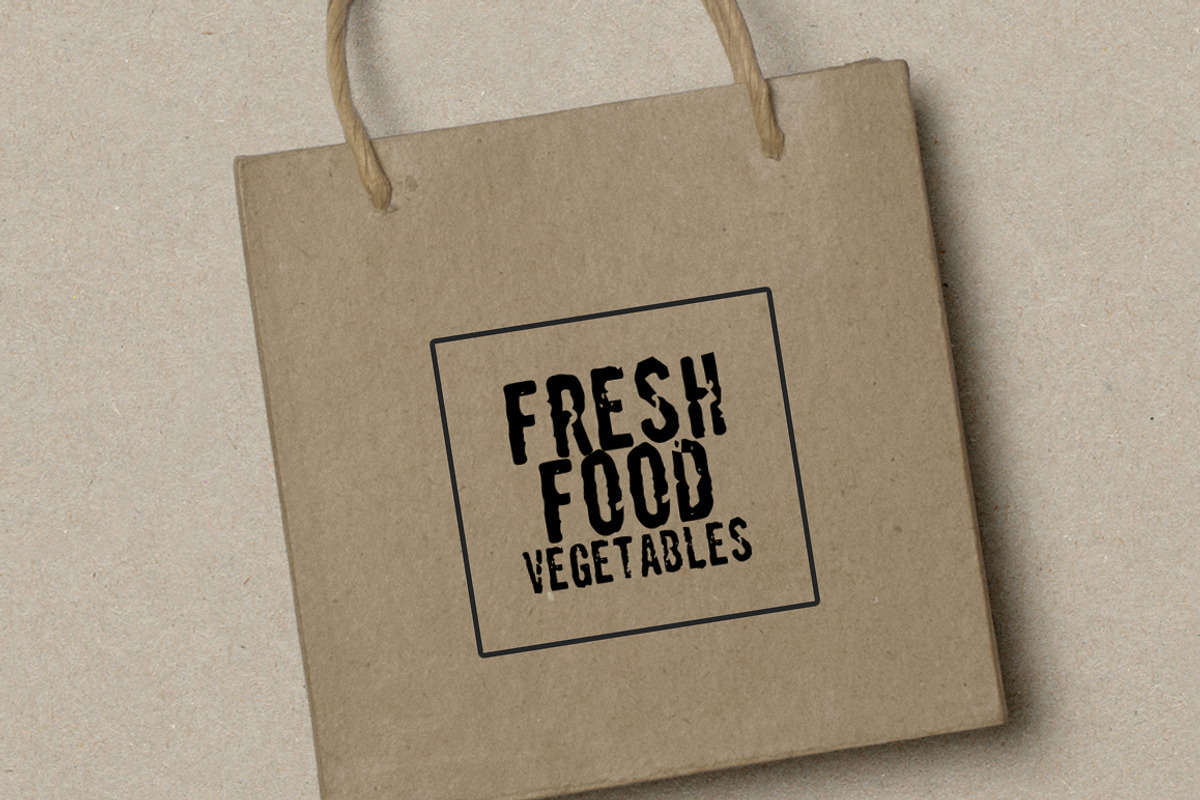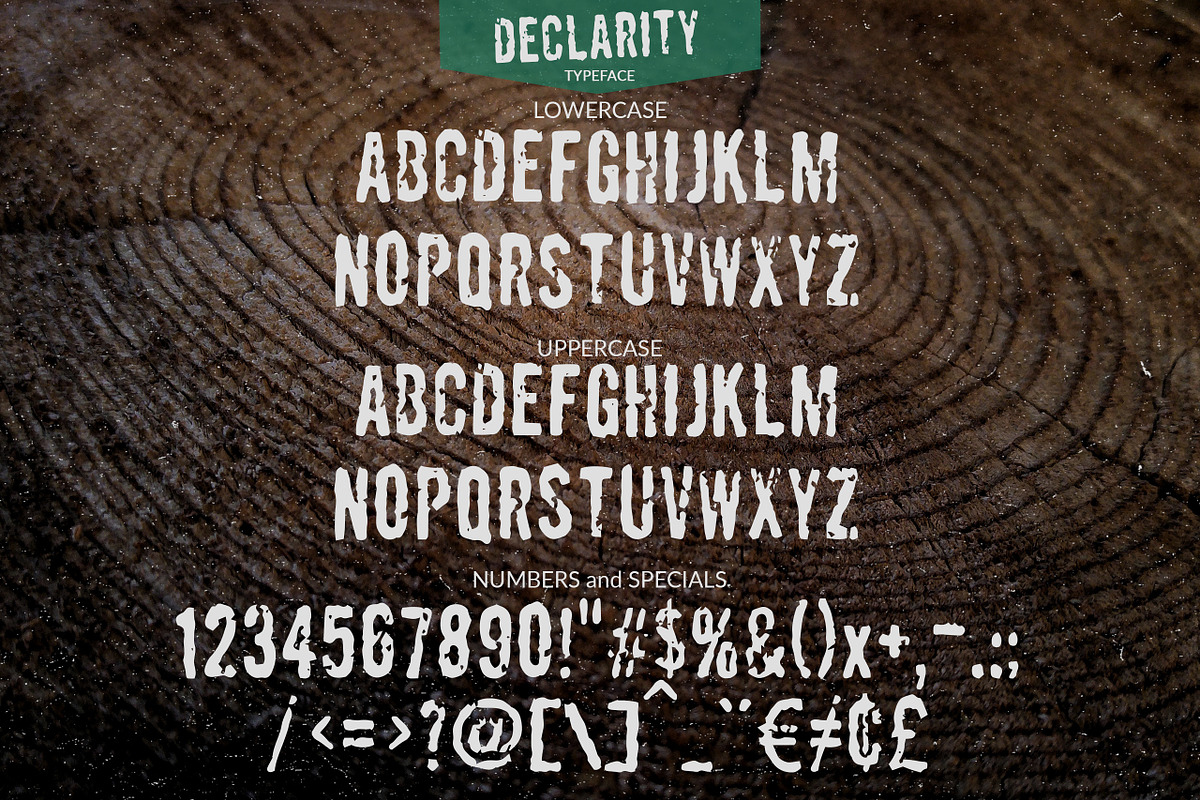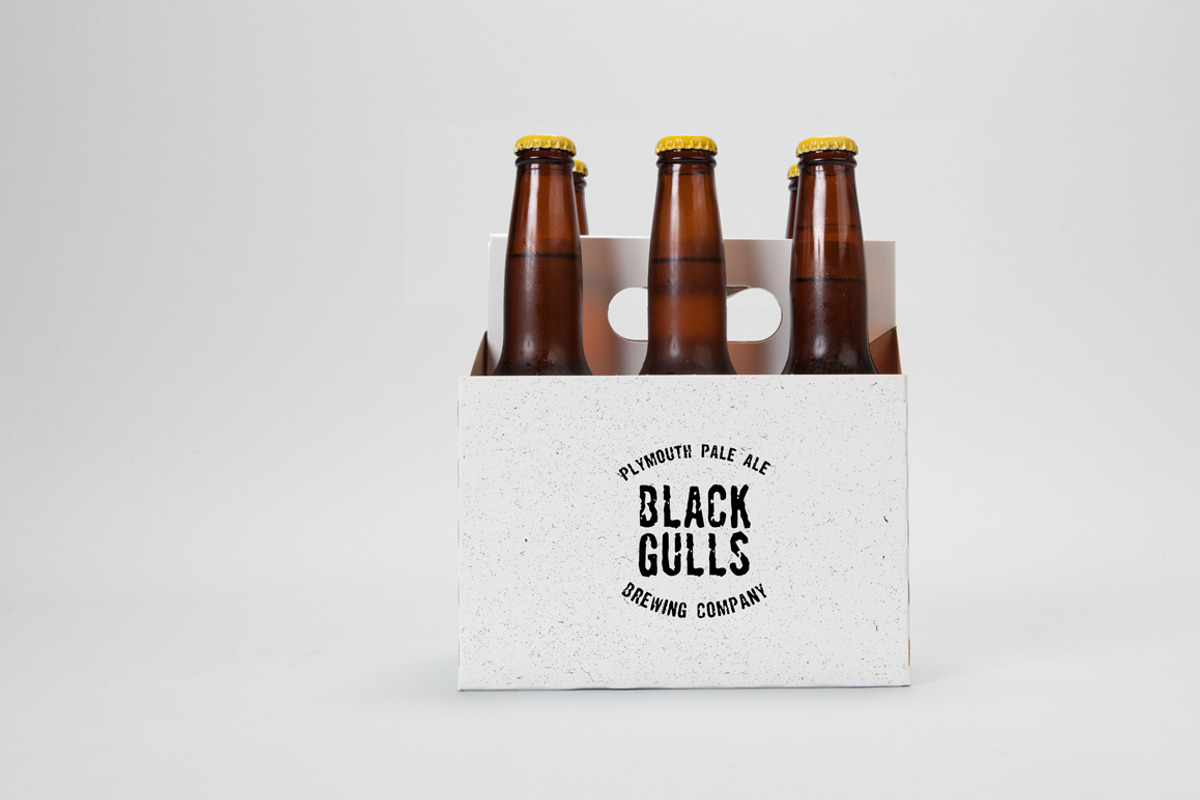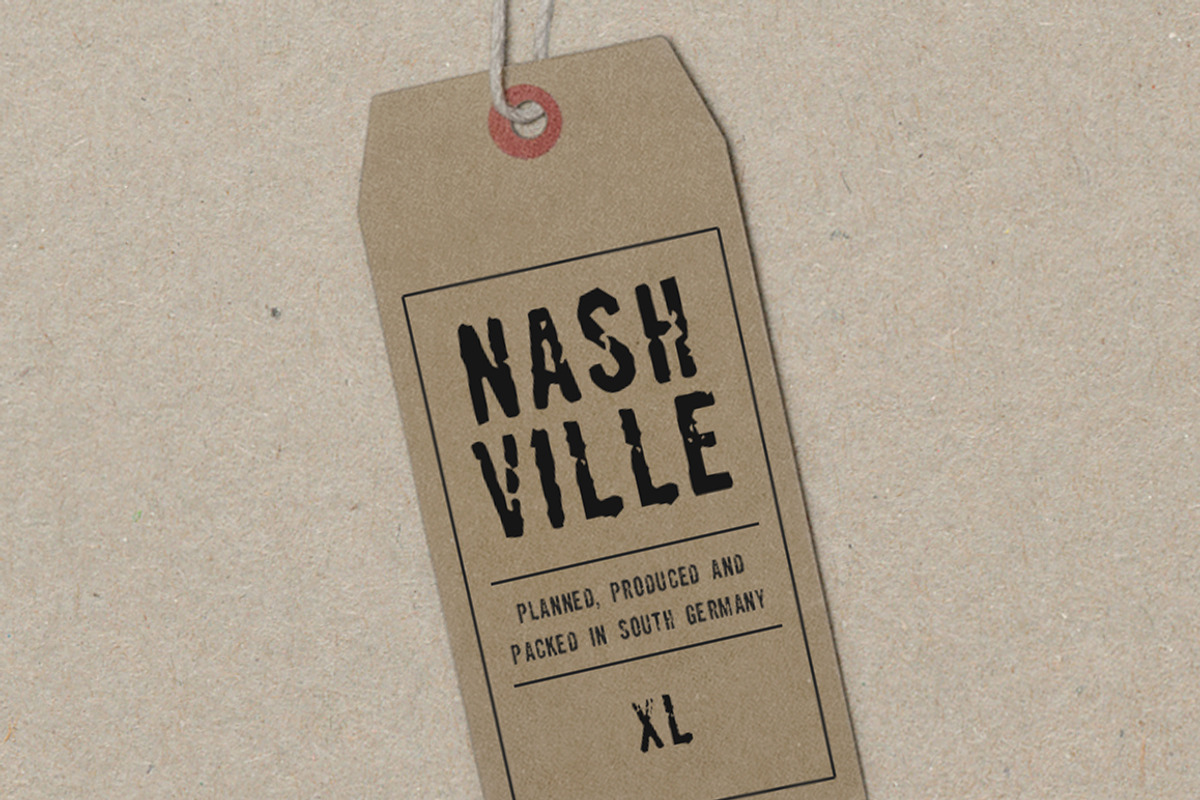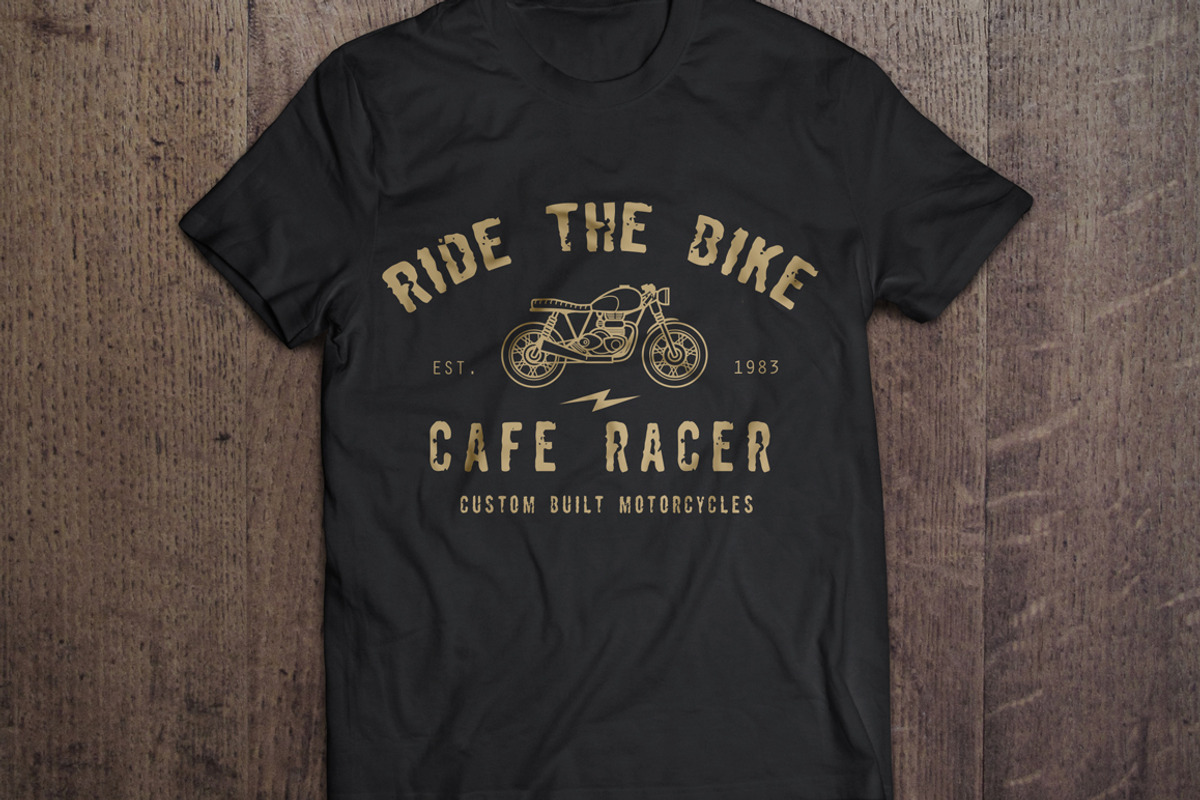
Declarity - Handstamped Font
Declarity - Handstamped Font by Studio FabianFischer is a font selected for branding, posters, packaging, typography.
- Designed are the uppercase letters for a fancy handcrafted look.
Declarity - Handstamped Font by Studio FabianFischer fits naturally into Branding, posters, packaging, typography.